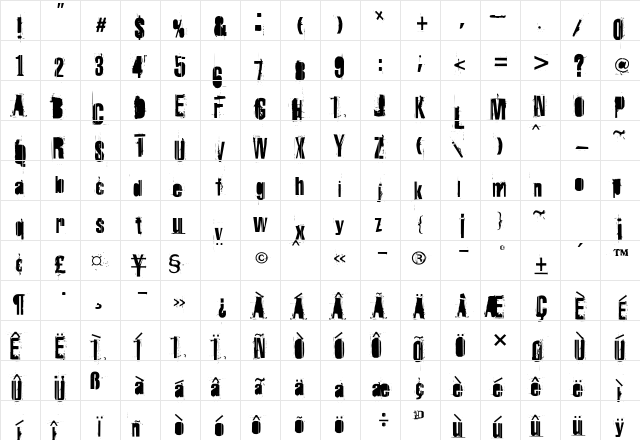
Dang Regular
Design Context for Dang Typeface
Dang is a composed and adaptable typeface that performs quietly and consistently across a wide range of design contexts.